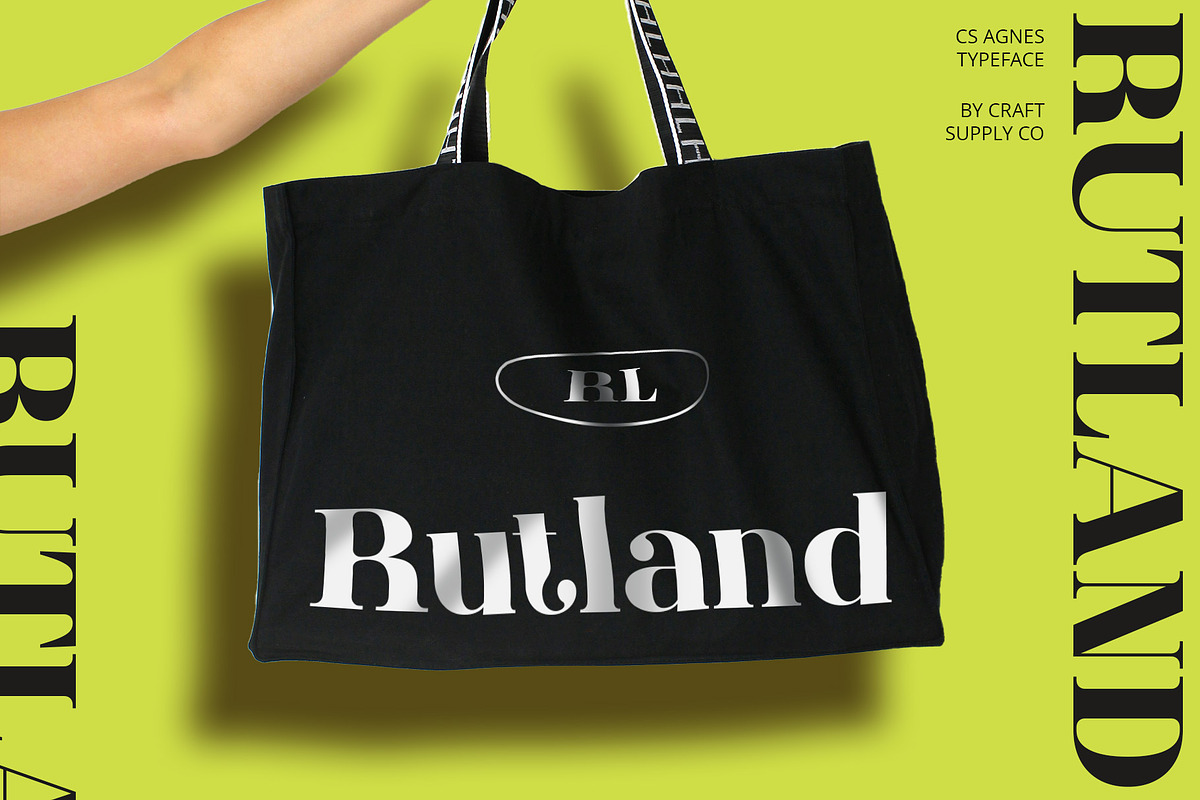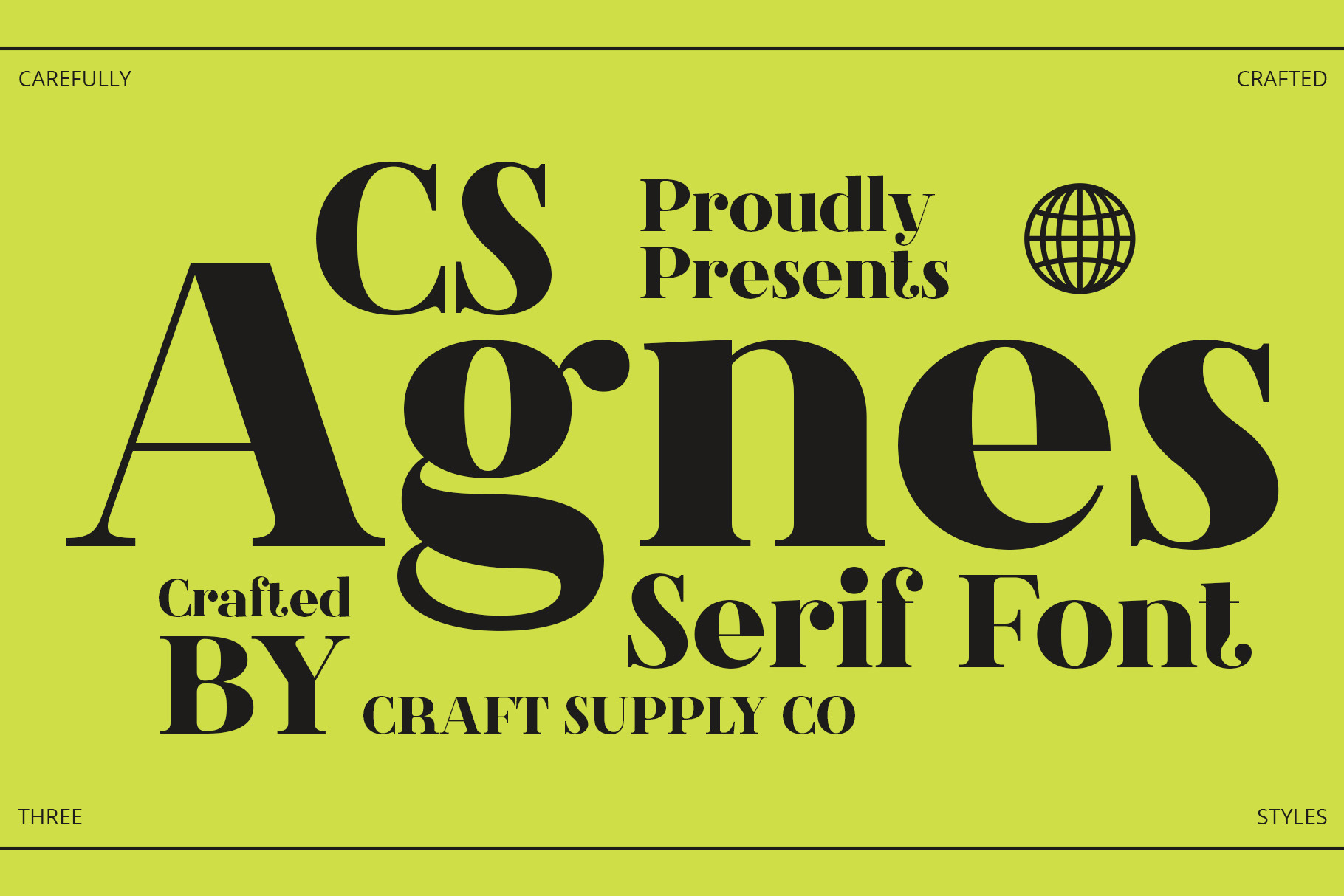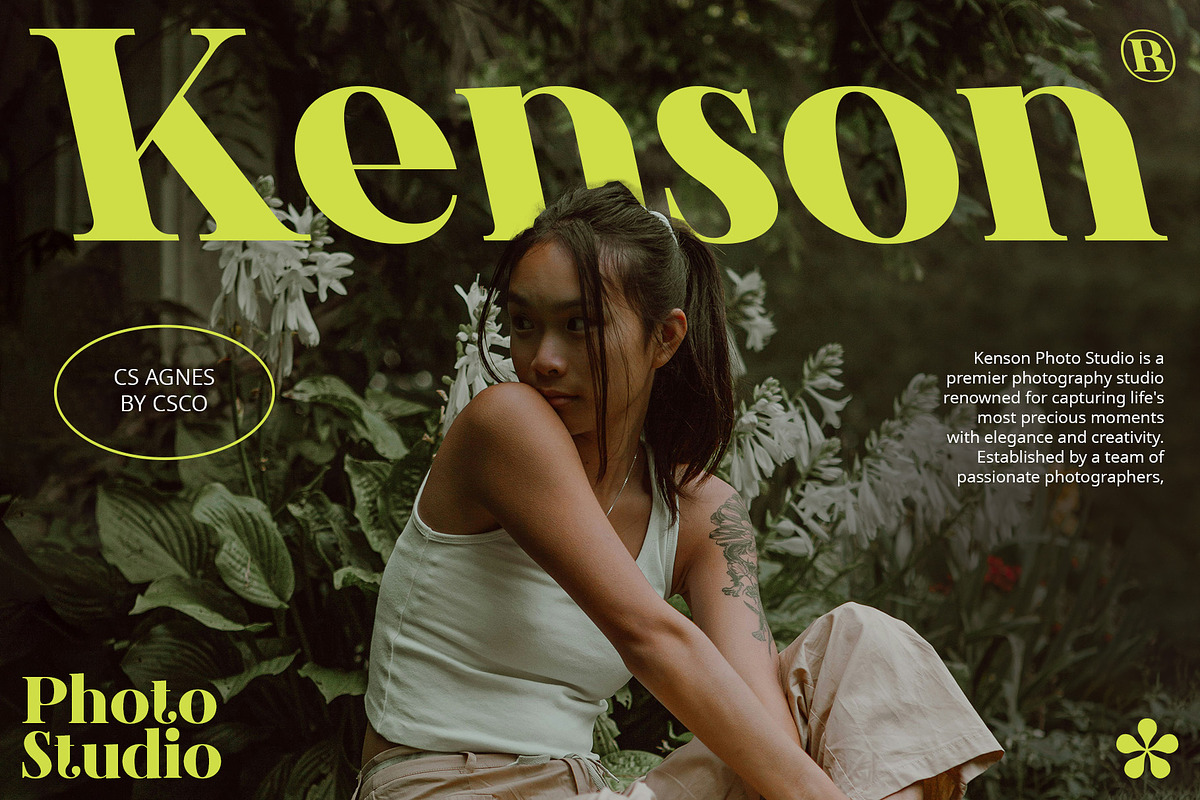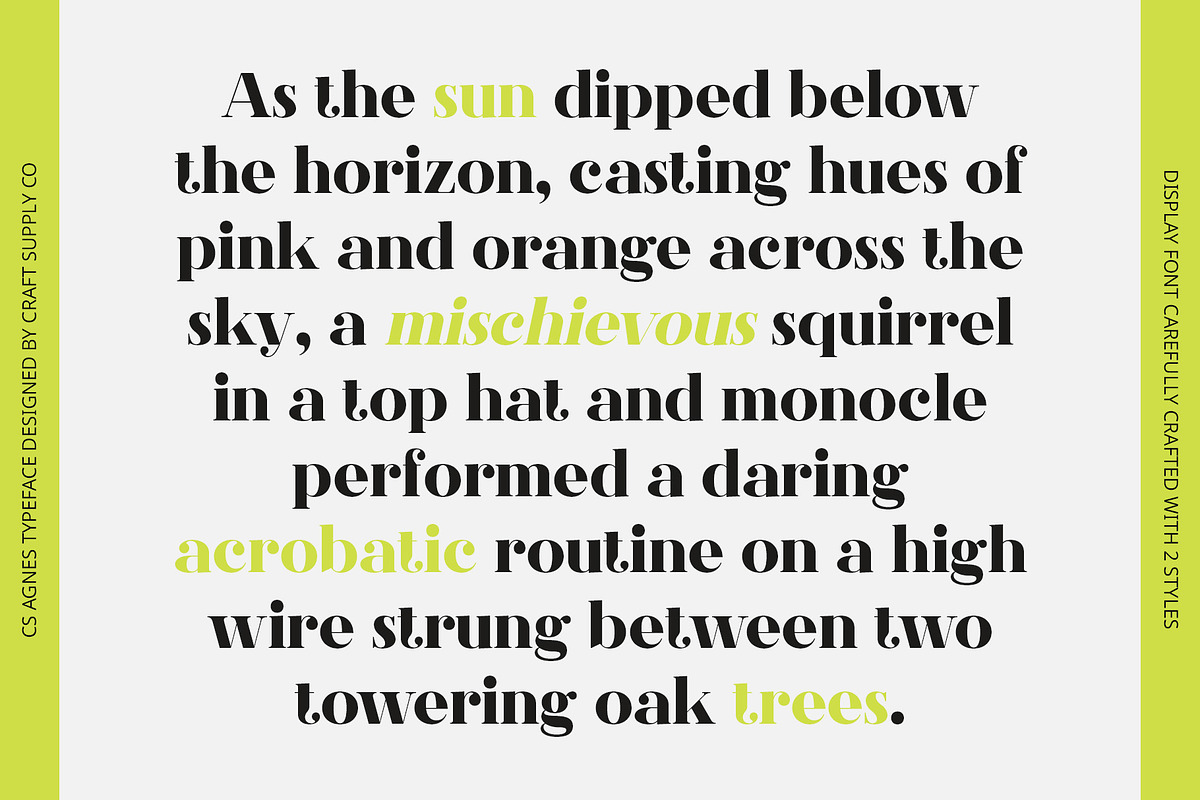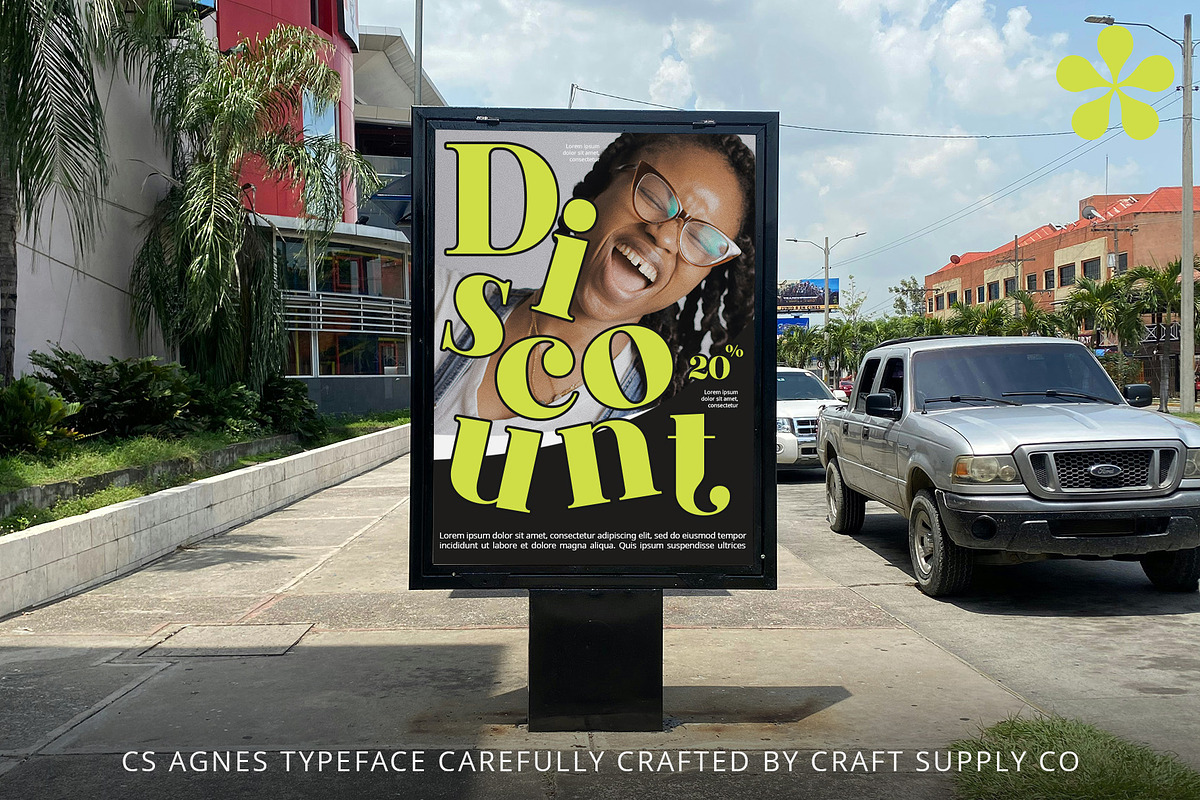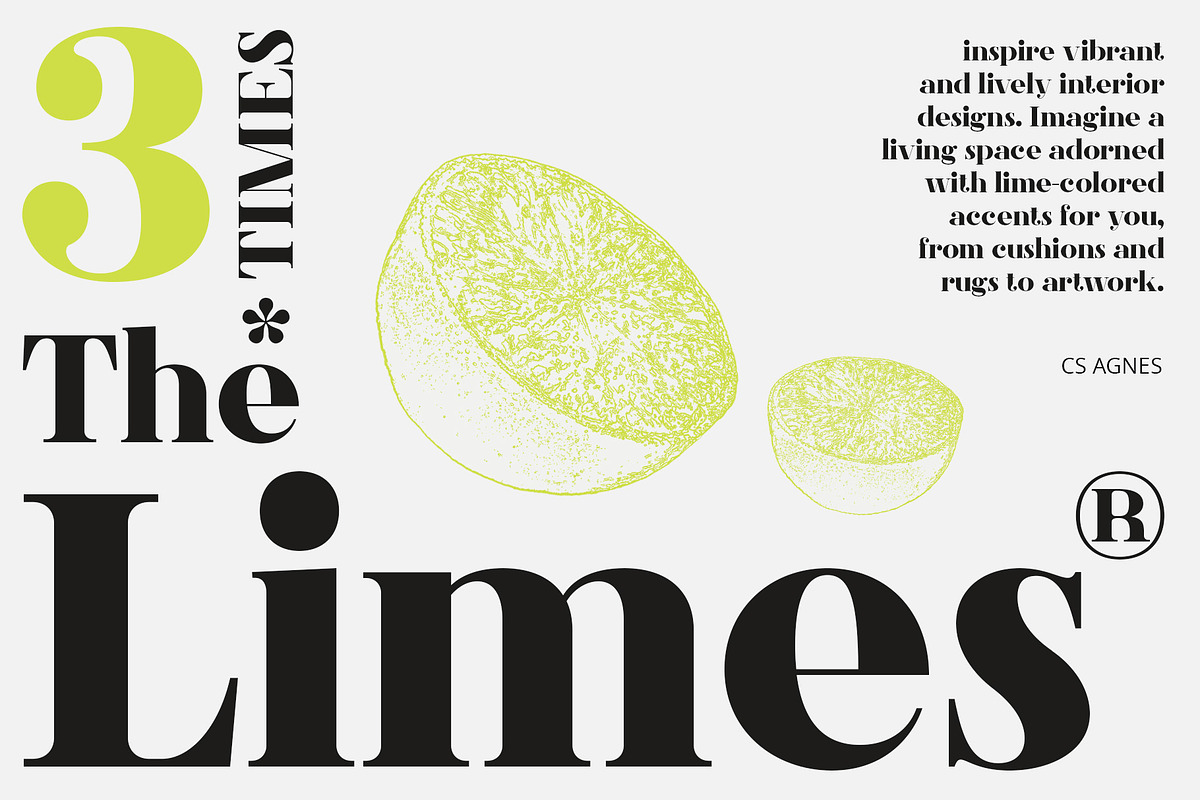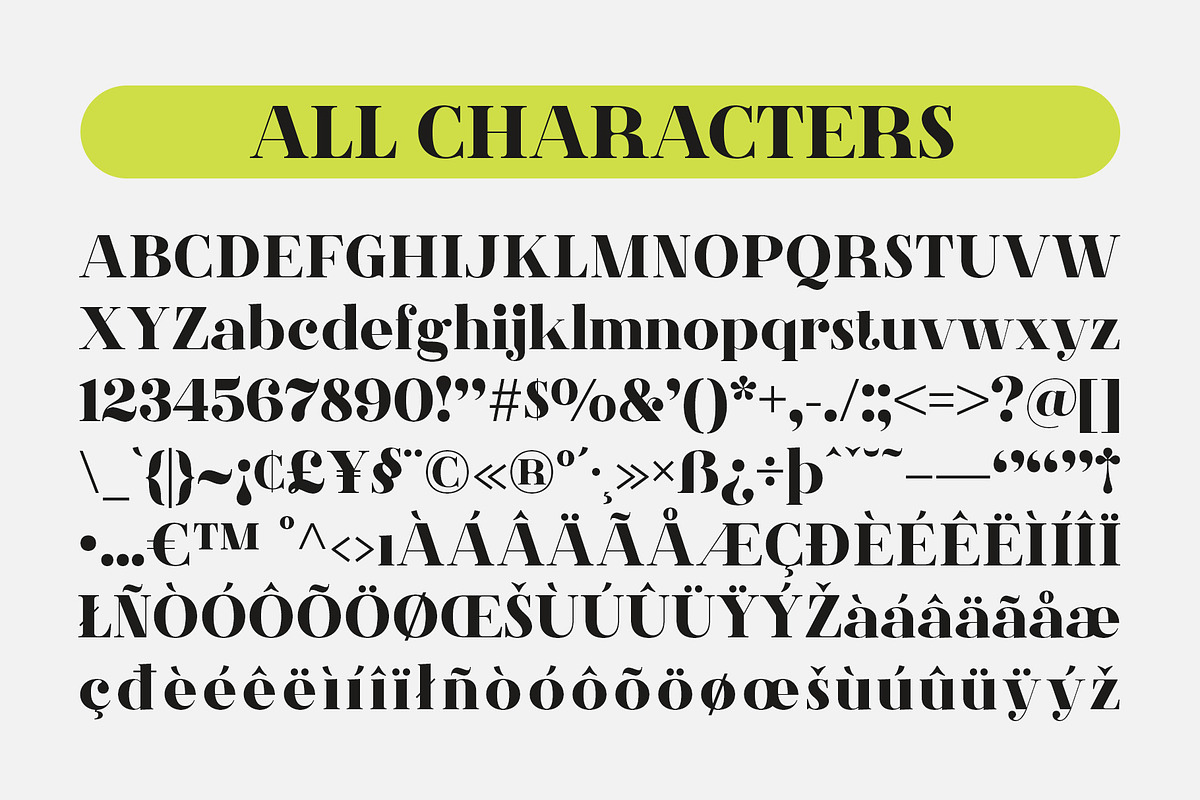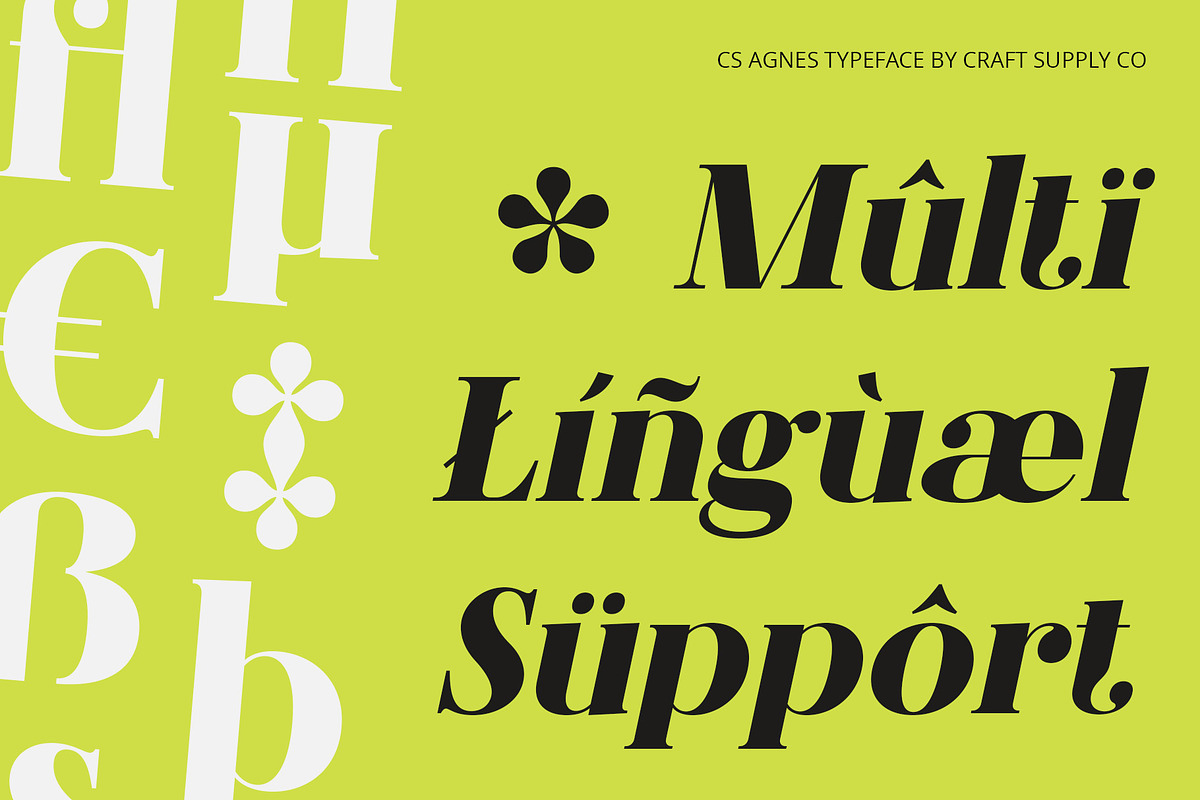
CS Agnes – Serif Font
CS Agnes – Serif Font: Classic Serif Font for Timeless Elegance
Classic Serif Font for Diverse Applications CS Agnes embodies timeless elegance with its classic serif design, perfect for a wide range of projects. Ideal for creating an elegant and classy impression, this font is particularly suited for applications such as logo design, promotional materials, books, and magazine layouts.
Traditional Charm With its classic style, CS Agnes evokes a sense of tradition while remaining relevant in modern design contexts. Its refined serif details and balanced proportions ensure readability and sophistication, making it a go-to choice for projects that demand a touch of timeless charm.
Versatility in Design Whether enhancing a brand’s identity or adding elegance to editorial layouts, CS Agnes offers versatility and reliability. Its timeless appeal makes it a valuable asset for designers looking to blend classic aesthetics with contemporary demands.
- CS Agnes Regular
- CS Agnes Italic
- CS Agnes ReverseItalic